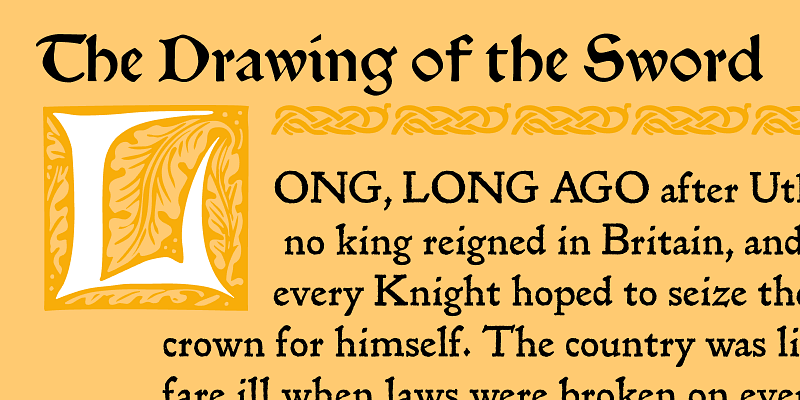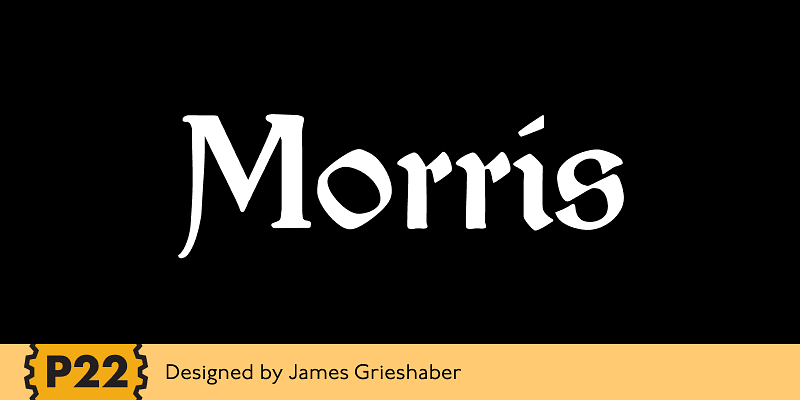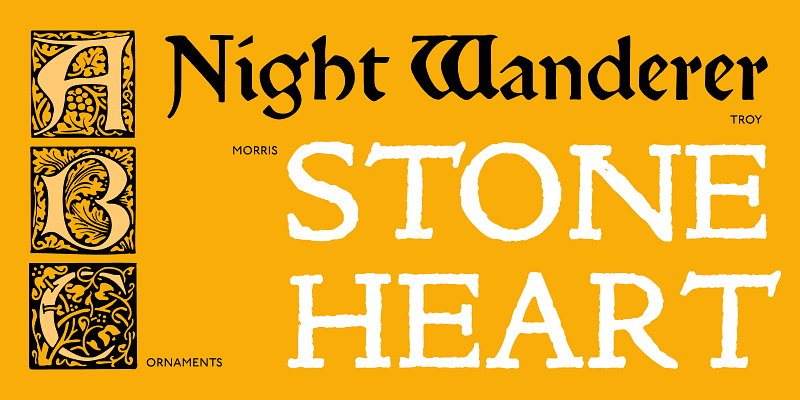
P22 Morris is based on type designs created by William Morris (1834–1896) for his Kelmscott Press, reflecting the ideals of the Arts & Crafts movement. These letterforms combine medieval influence with 19th-century craftsmanship, resulting in ornate yet readable typefaces. With refined to richly decorative styles, Morris is well suited to adding rich and deliberate texture to book design, historical projects, wedding stationery, and anything calling for a hand-crafted, literary tone.